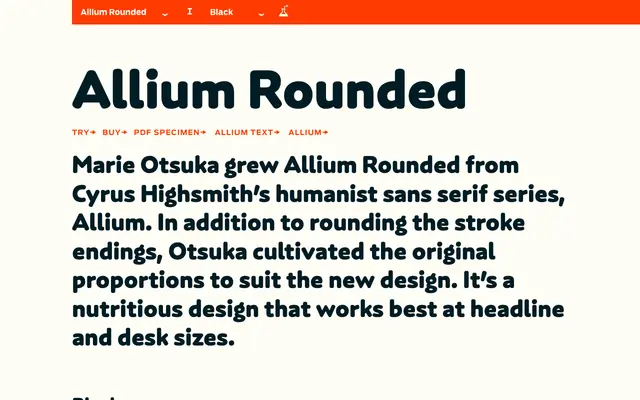
Allium Rounded
Occupant Fonts · Marie Otsuka, Cyrus Highsmith · 2019
A rounded variant of Cyrus Highsmith's Allium, adapted by Marie Otsuka with softened stroke endings and recalibrated proportions for headline and display use.
Marie Otsuka extended the Allium series by rounding the stroke terminals and adjusting proportions to suit the warmer character of the new design. Five weights from Extra Light to Black, each with italics, cover Latin Extended, Cyrillic and Greek. The foundry recommends it at headline and desk sizes rather than text settings.
Derived from Cyrus Highsmith's humanist sans serif Allium, with rounded stroke terminals added by Marie Otsuka; the humanist proportions and structure are preserved throughout.